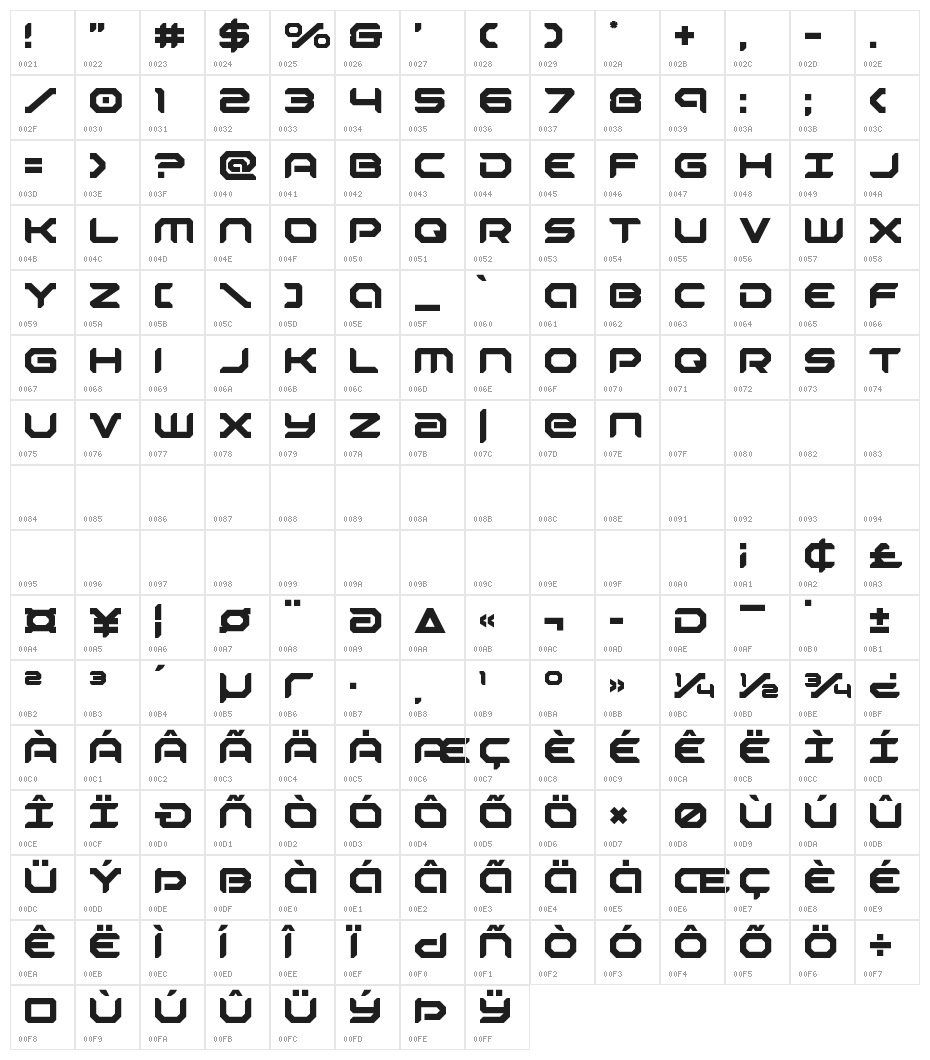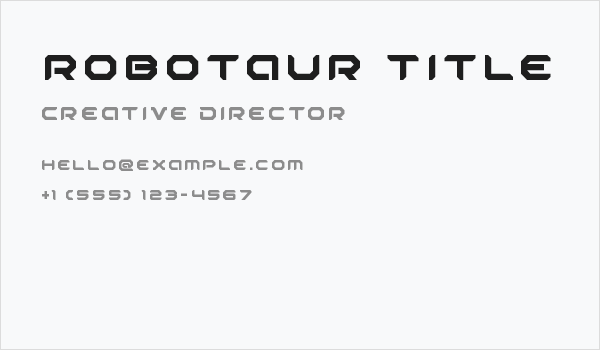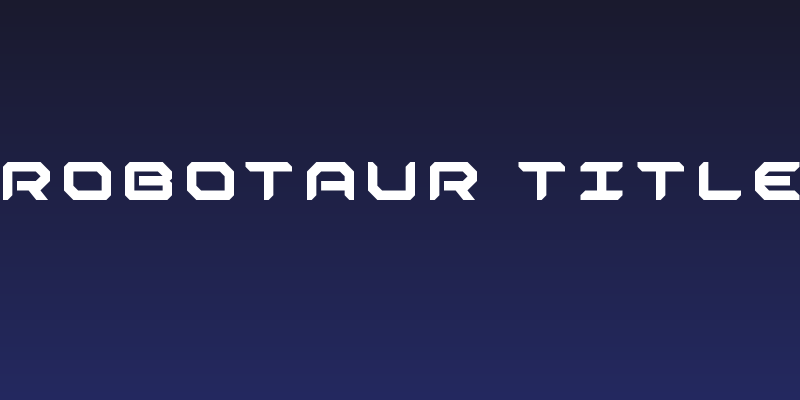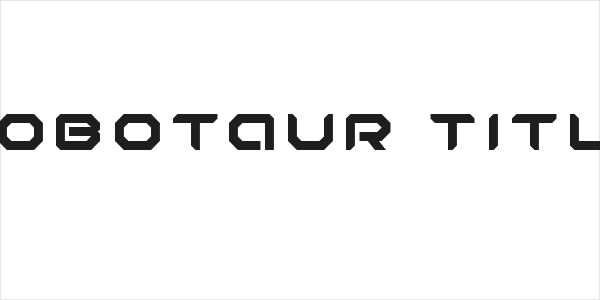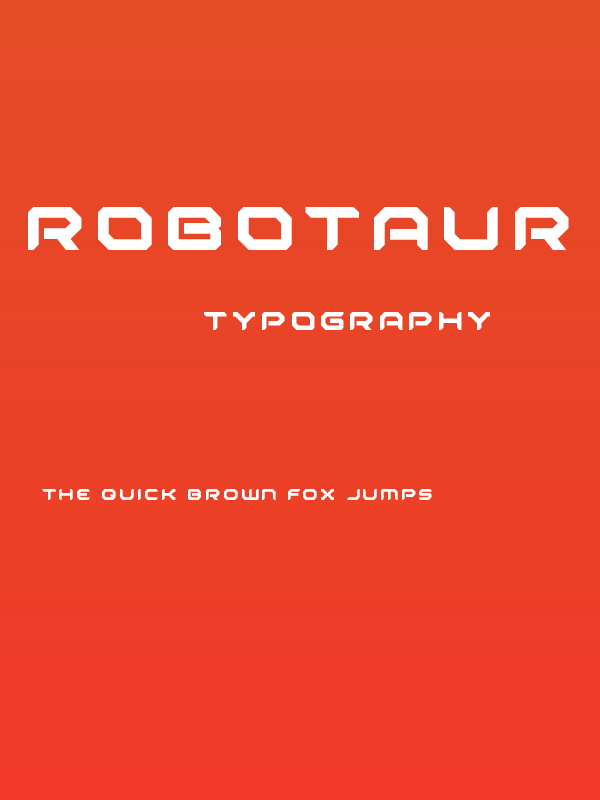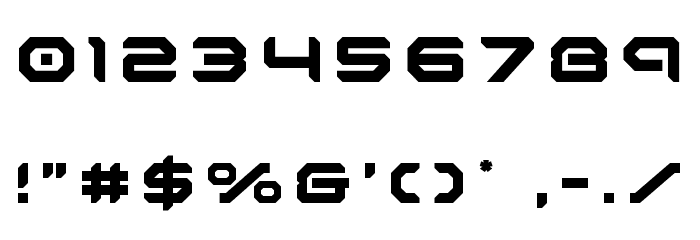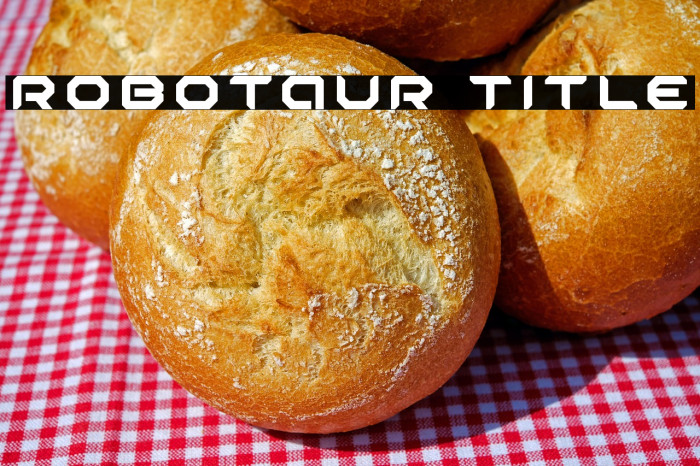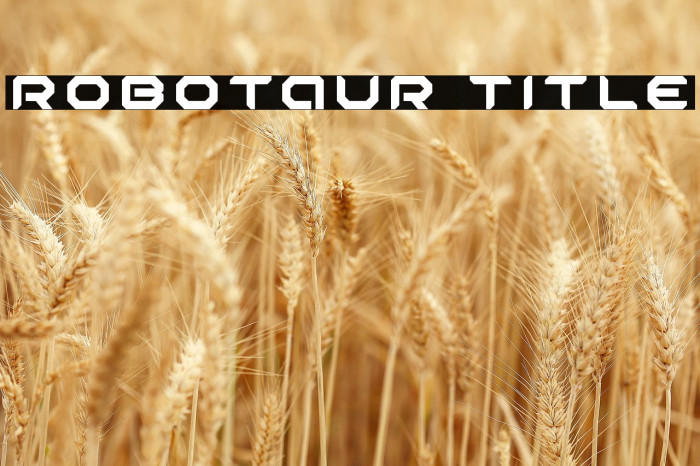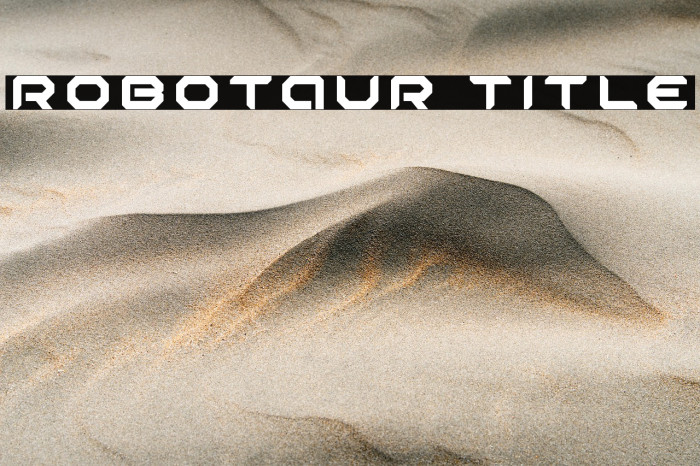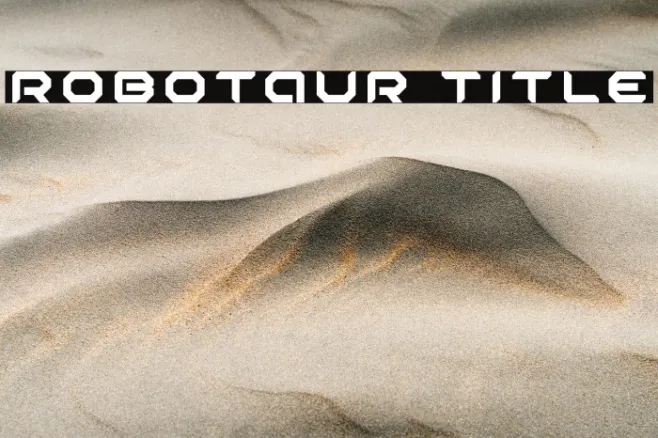
Robotaur Title Font
Robotaur Title Description
This font features a futuristic and angular design, characterized by its bold and geometric letterforms. The characters exhibit a uniform thickness, creating a cohesive and modern appearance. The sharp edges and straight lines give it a robotic and industrial feel, making it stand out in digital and tech-related contexts. The uppercase and lowercase letters maintain a consistent style, while the numerals and special characters complement the overall aesthetic. Its unique structure is ideal for capturing attention and conveying a sense of innovation.
| Proposed Projects | Ideal for technology branding, video game titles, sci-fi movie posters, and digital interfaces. |